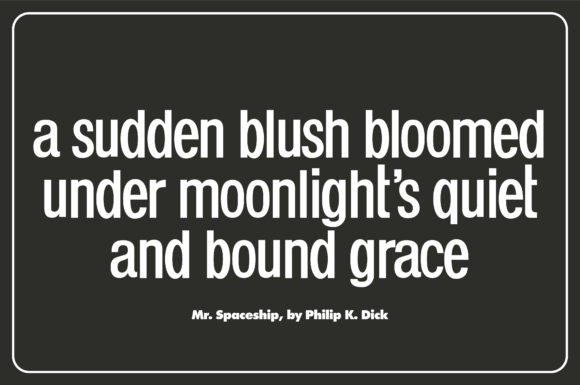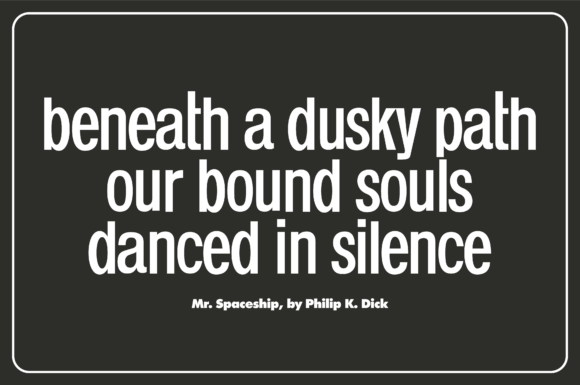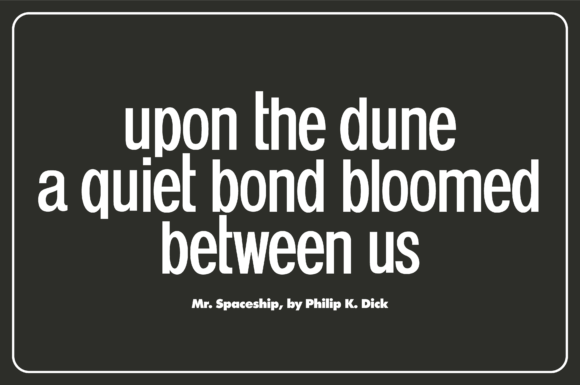
Cubexa Font
Discover the realm of grandiose typography with the Cubexa font collection, encompassing Regular, Italic, and Reversed Italic styles. This impeccably sleek, minimalist grotesque font collection embodies the pinnacle of modern design sensibilities and pared-down sophistication. A marvel of geometric design, Cubexa is primed to transform ordinary text and titles into a visually arresting, literary spectacle. Whether your canvas is a groundbreaking website, a sleek magazine layout, or a creative endeavor craving a novel approach, Cubexa’s versatility sits at the forefront of its appeal. It stands as a gateway to rejuvenating brand identities through logos, amplifying the magnetism of product packaging, or injecting a vibrant twist into signages. Engage with the captivating allure of Cubexa today, and catapult your projects into unprecedented realms of design genius.